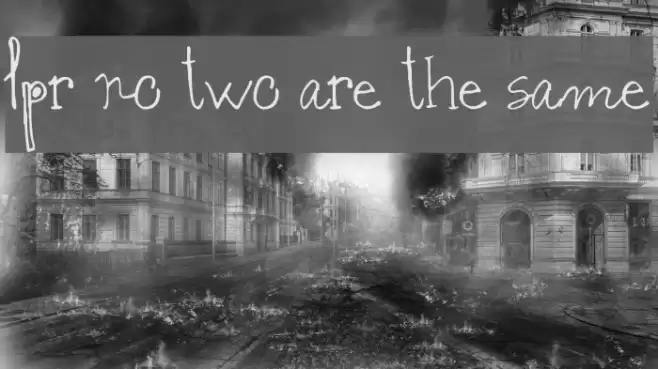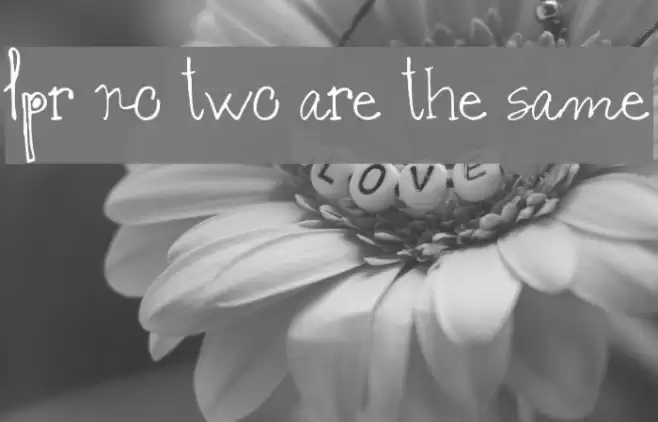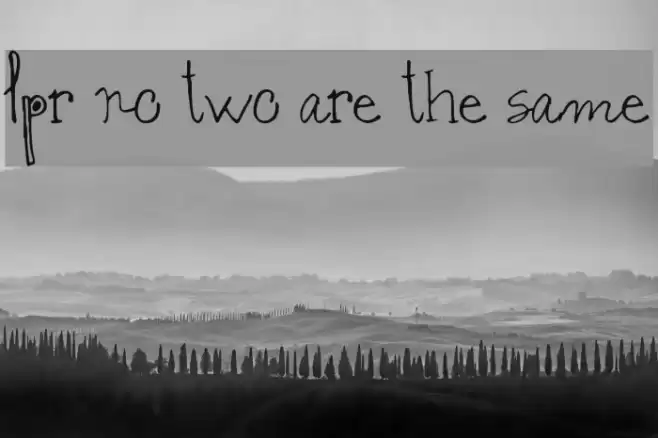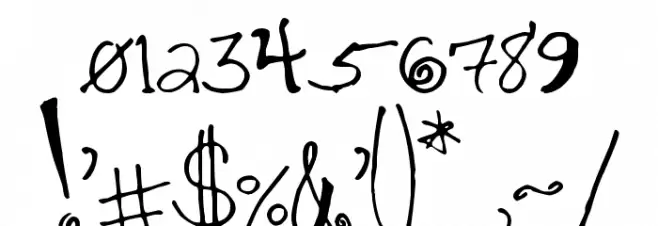
lpr no two are the same Font
lpr no two are the same Description
This font exhibits a whimsical and playful style, characterized by its irregular and varied letterforms. Each character is uniquely designed, incorporating elements such as dots, swirls, and unexpected angles, giving it a hand-drawn, artistic feel. The uppercase letters are particularly distinctive, with some featuring decorative elements like dots and lines that add to the font's quirky personality. The lowercase letters maintain this playful aesthetic, with a mix of curves and sharp edges. Numbers and special characters follow the same creative theme, ensuring a cohesive look across all glyphs. This font's unique style makes it stand out, perfect for projects that require a touch of creativity and individuality.
A whimsical, hand-drawn font with unique, playful letterforms and decorative elements from Uncategorized fonts.
- Proposed Projects: Ideal for creative projects such as children's books, artistic posters, playful branding, and unique invitations.